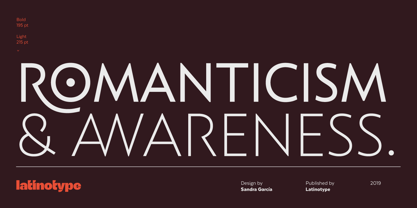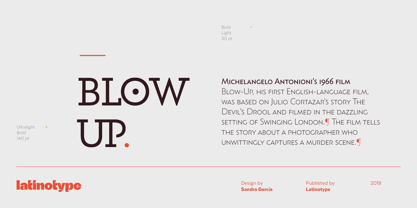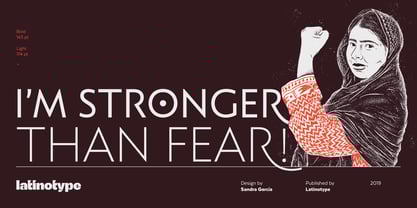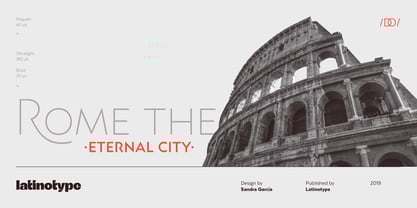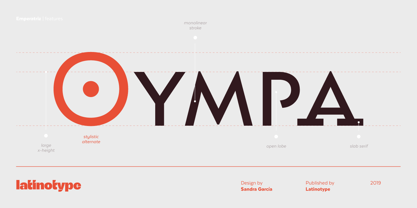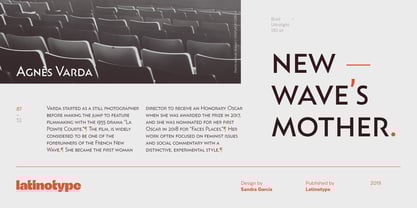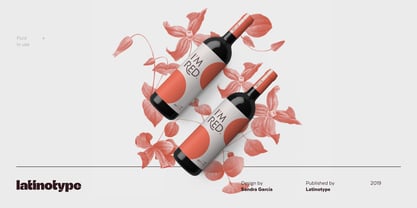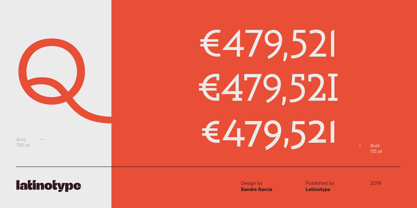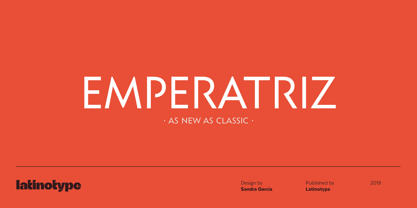
Emperatriz Font
Emperatriz Font is perfect for luxury fashion branding, royal wedding invitations, prestigious corporate identities, high-end jewelry packaging, exclusive boutique logos, imperial event materials, aristocratic marketing campaigns, regal social media graphics, sovereign brand communications, and majestic cultural celebrations.
What makes Emperatriz Font so exciting is its imperial majesty that captures the commanding presence and refined elegance of royal authority while maintaining contemporary sophistication and professional excellence. This majestic typeface embodies sovereign power and aristocratic grace, creating typography that commands respect and communicates the highest levels of luxury and prestige.
The Emperatriz Font family includes light, regular, medium, bold, and black weights, complete with regal design features, imperial styling elements, and majestic characteristics that provide designers with comprehensive tools for creating commanding and memorable typography that embodies the essence of royal authority and aristocratic refinement.
The majestically proportioned letterforms of Emperatriz Font showcase imperial elegance with sovereign character that creates instant recognition of royal quality and aristocratic authority. Each character displays meticulous attention to maintaining the commanding presence that defines imperial excellence while ensuring contemporary readability and professional versatility. The font's regal construction and majestic spacing contribute to its sovereign appearance and aristocratic appeal.
Luxury brands and prestigious institutions consistently choose Emperatriz Font for projects requiring imperial authenticity and royal sophistication. The comprehensive character set includes uppercase and lowercase letters, numerals, extensive punctuation, international accents, and regal decorative elements that provide complete support for luxury branding applications and aristocratic design compositions.
The timeless majesty of Emperatriz Font ensures exceptional performance across both traditional print and modern digital platforms. Whether developing royal brand identities, creating imperial marketing materials, or designing aristocratic event communications, this remarkable typeface delivers consistent sovereignty that resonates with audiences seeking the ultimate in luxury and prestigious presentation.